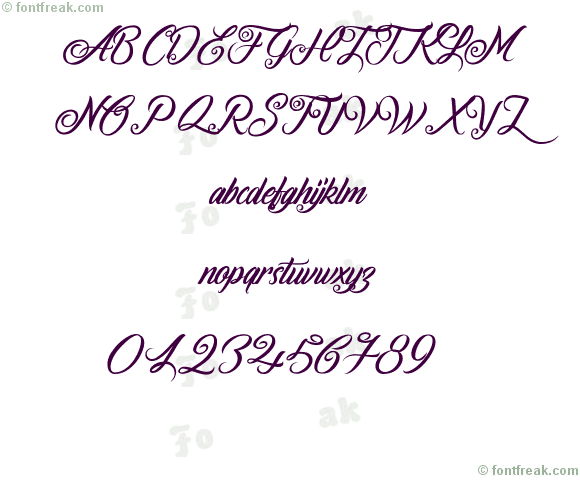
Fire on the Mountain
About Fire on the Mountain
The Fire on the Mountain font, created by Agathe M. Joyce, is a striking display typeface that captures the essence of warmth and adventure. This decorative font features fluid, sweeping strokes that evoke a sense of movement, making it an ideal choice for projects that require an energetic flair. The elegant curves and artistic flourishes give this typeface a unique character, while the moderate stroke weight provides clarity and legibility. Its careful spacing enhances readability, ensuring the font stands out in various applications.
This versatile font is perfect for a range of creative uses. Its bold, dynamic style makes it a fantastic choice for movie posters, where it can convey excitement and drama. Additionally, the Fire on the Mountain font works beautifully in wedding invitations, adding a romantic and whimsical touch to any nuptial announcement. Restaurant menus can benefit from its warm aesthetic, inviting diners to explore the culinary offerings. Moreover, content creators looking to spice up their branding or social media graphics will find this font adds a memorable and distinctive element to their designs.
What sets the Fire on the Mountain font apart is its ability to evoke emotion while maintaining functionality. This font not only draws attention but also tells a story, making it a compelling choice for anyone looking to make a lasting impression. For those interested, the Fire on the Mountain font free download is available, inviting you to explore its captivating design for your next project.